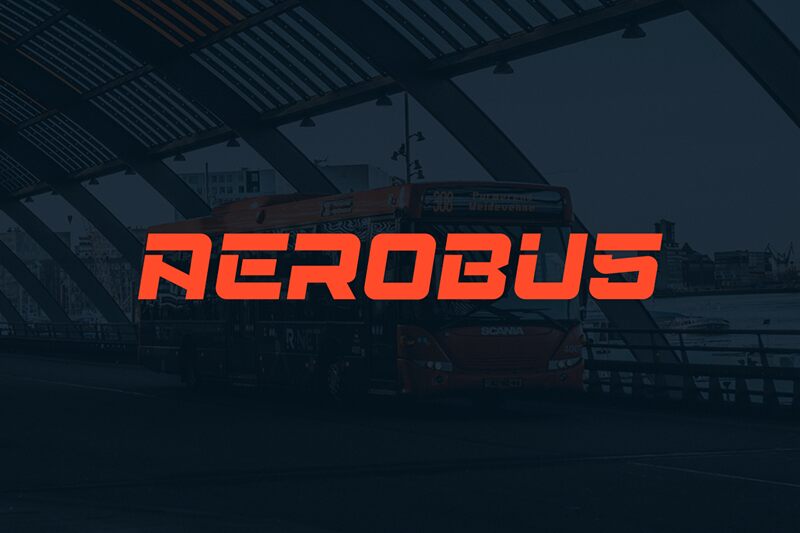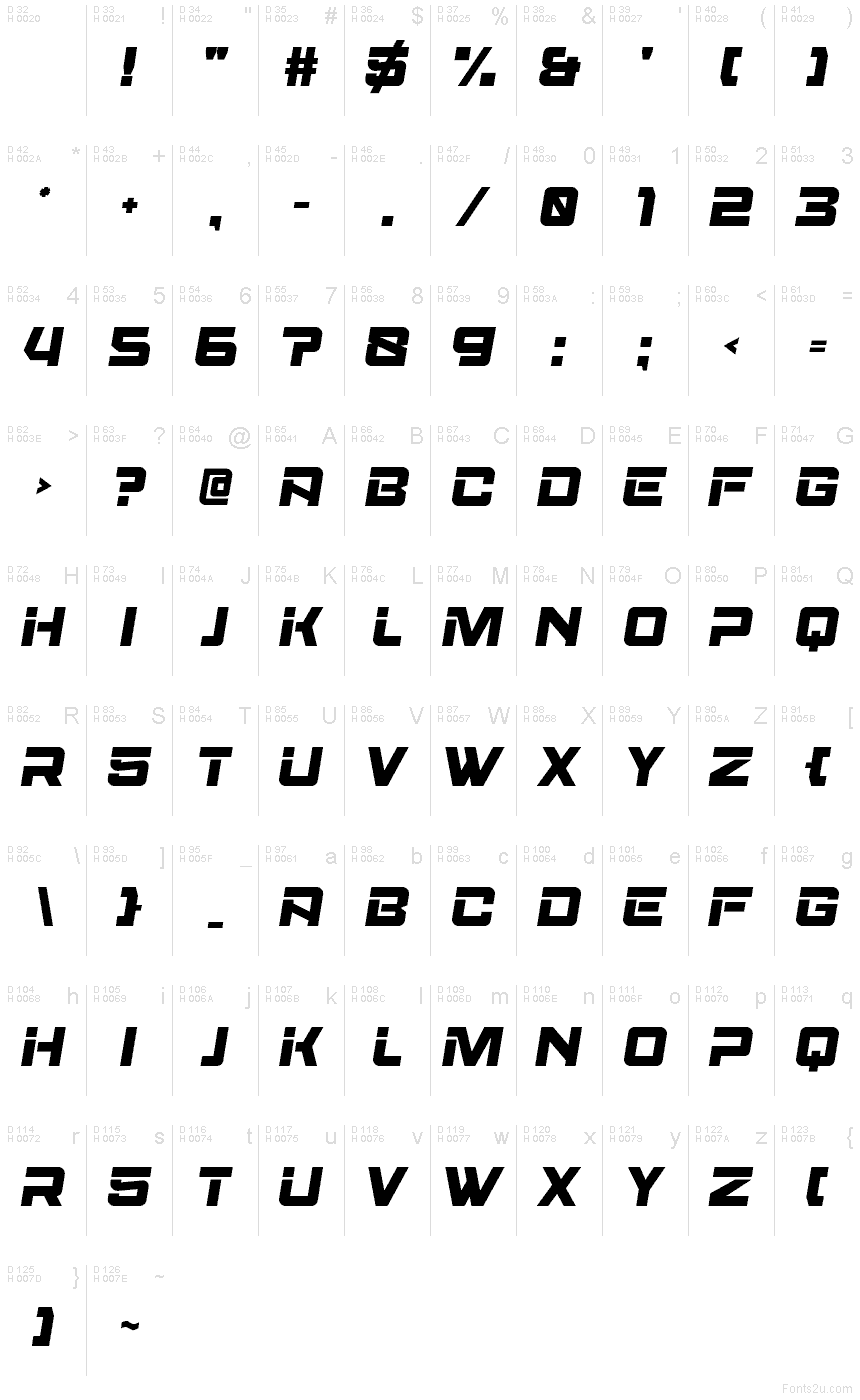
Aerobus Personal Use
Aerobus font by Mocha Frappuccino is a futuristic display font with an expanded width and bold expression. Industrial, angular, and geometric, this typeface’s characters form unique compact layouts, all while showcasing a strong technological aesthetic.
This free font is perfect for music album covers, book titles, posters, game design projects, social media covers and posts. Use it also on flyers, business cards for digital businesses/institutions or in general branding material.